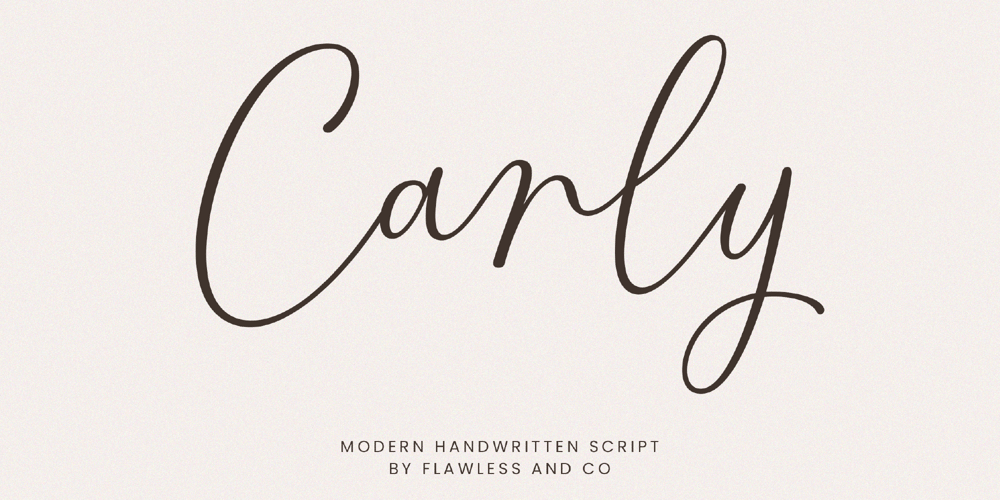
Carly
Carly font
Carly Font Family was designed by Achmad Yani and published by Flawlessandco. Carly contains 1 styles and family package options. Carly Script is a handcrafted script that made with a modern and girly typeface, this style gives a feel of sweetness. An Original typeface that suitable for any graphic designs such as branding materials, t-shirt, print, business cards, logo, poster, t-shirt, photography, quotes .etcThis font support for some multilingual. Modern Sweet Retro that contains uppercase A-Z and lowercase a-z, alternate character, numbers 0-9, and some punctuation.If you need help, just write me! Thanks so much for checking out my shop!